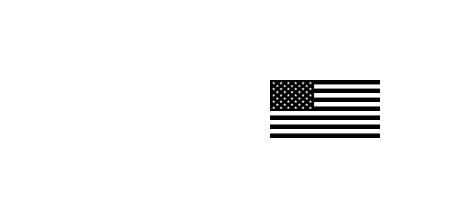
US Flag
By The FontSite
US Flag isn't a font in the traditional sense; it's a symbolic representation. The image shows a miniature, minimalist American flag, rendered in stark black and white. The stripes and stars are simplified, creating a bold, graphic icon rather than a typographic character. It evokes patriotism in a compact, uncomplicated form.